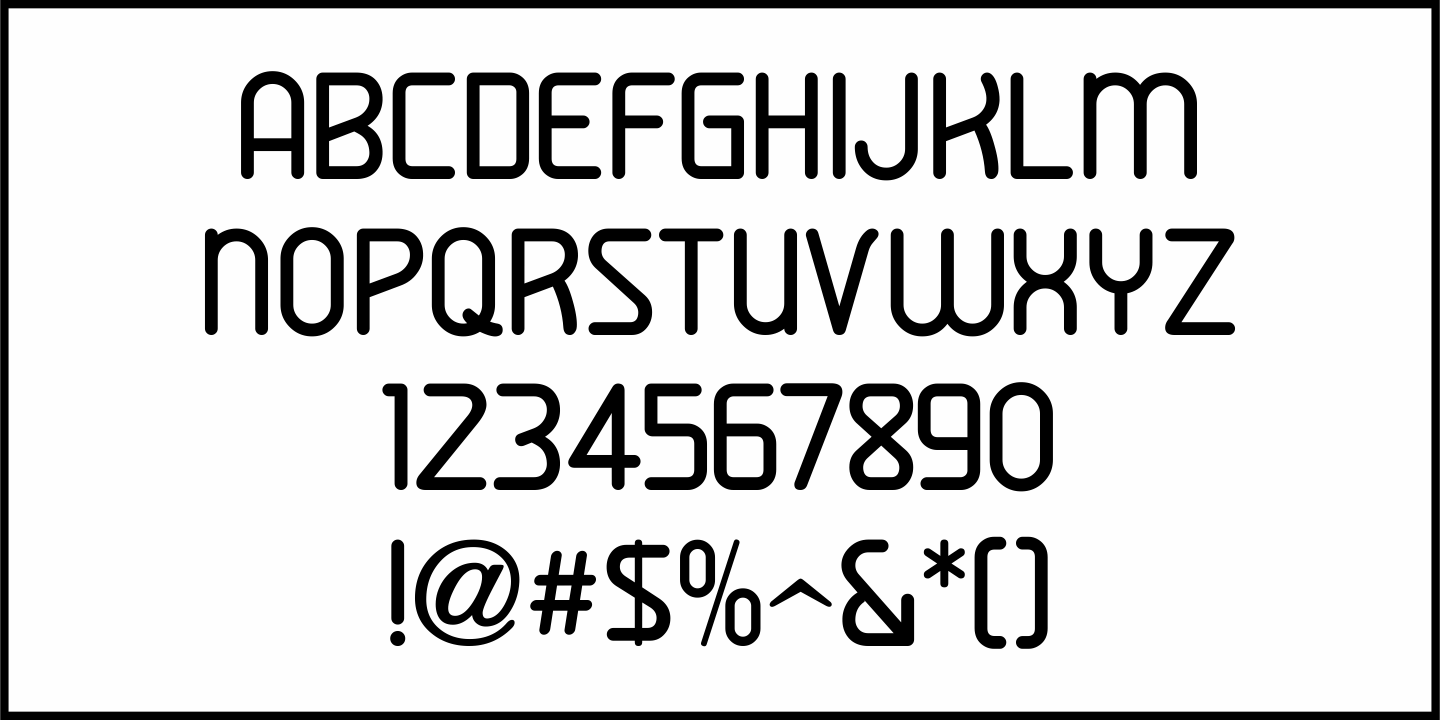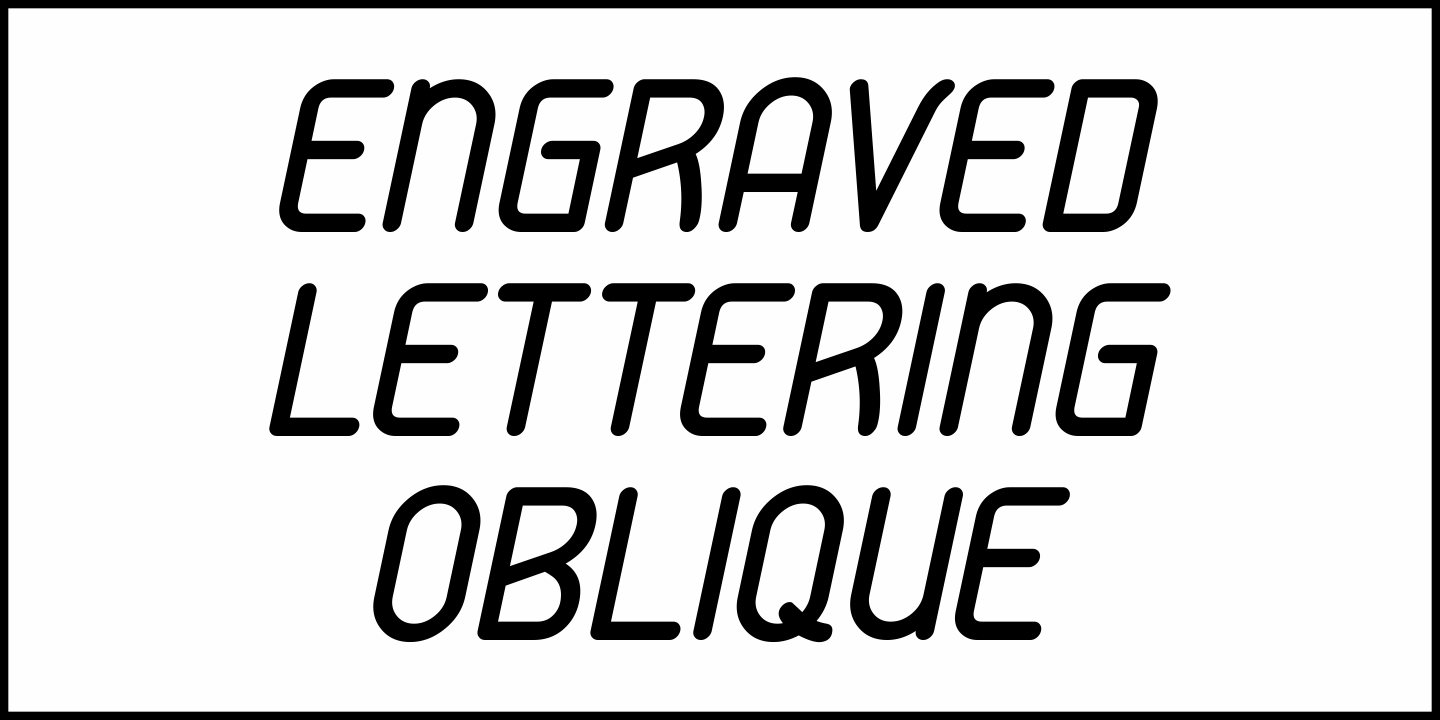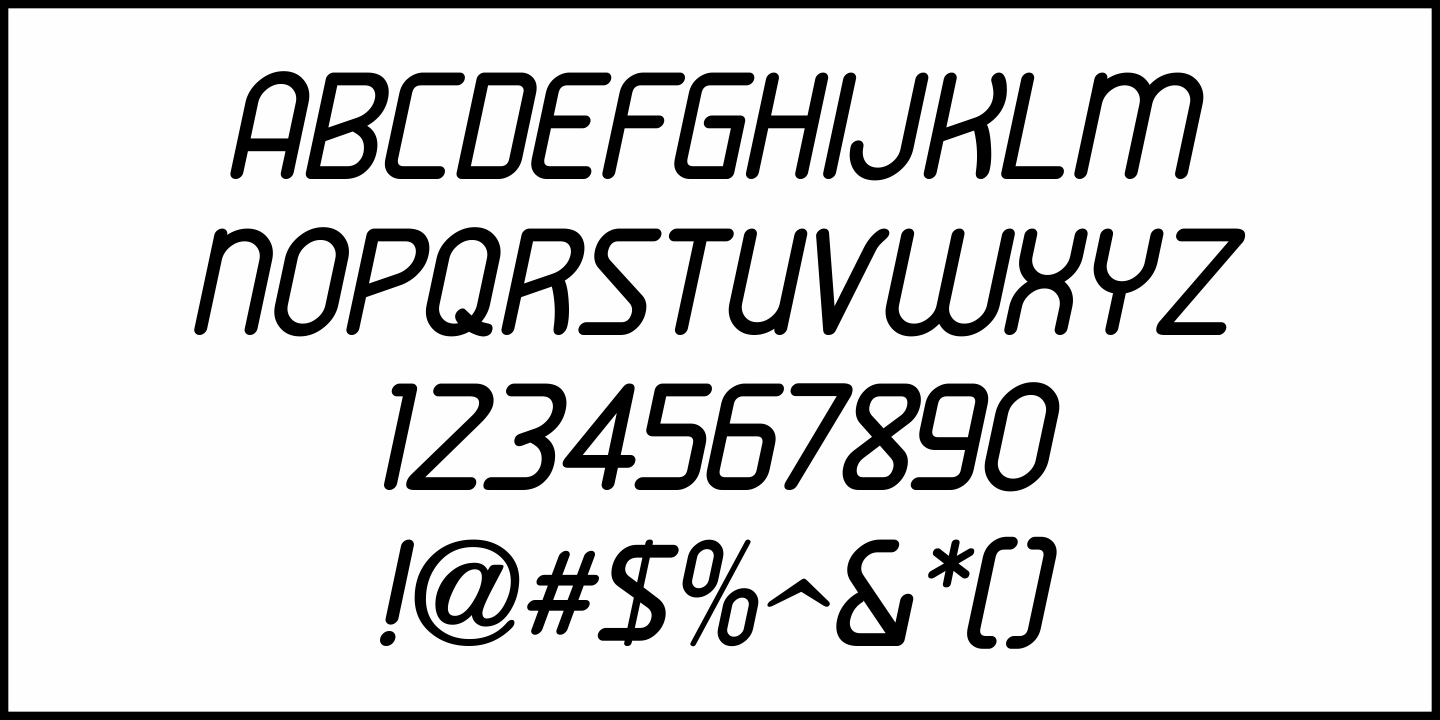
Engraved Lettering
A 1960 catalog brochure from Spencer Industries showcased engraved stock signs featuring a typeface they called Duquesne.  This interesting sans serif design with rounded terminals inspired Engraved Lettering JNL, which is available in both regular and oblique versions.
Spencer Industries has been manufacturing business and architectural signage for over 150 years and is based in Philadelphia, Pennsylvania.